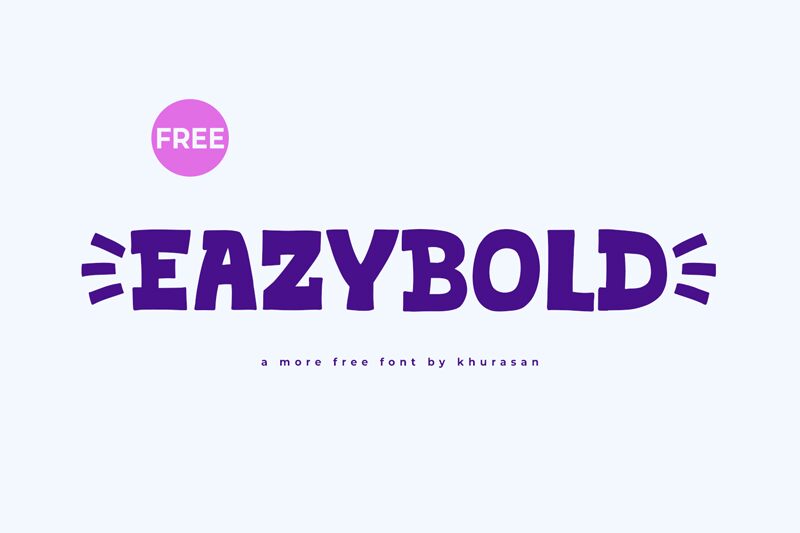
Eazybold
Eazybold, crafted by the renowned Khurasan, is a display font that packs a playful punch with its cartoon-style aesthetic. With its bold weight and semi-expanded width, Eazybold exudes confidence and friendliness, making it an excellent choice for projects that aim to grab attention while maintaining a sense of fun and approachability.
The chunky letterforms of Eazybold are designed to stand out; their solid structure offers superb readability even from a distance. This makes the font particularly suitable for headlines, posters, children's books, or any creative work where clarity and character are key. The playful vibe of Eazybold lends itself to informal branding initiatives or advertising campaigns seeking to convey warmth and whimsy.
Whether you're designing for print or digital media, Eazybold is versatile enough to infuse your project with an engaging personality that resonates with audiences across various platforms. Embrace the spirited charm of Eazybold in your next creative endeavor!
The chunky letterforms of Eazybold are designed to stand out; their solid structure offers superb readability even from a distance. This makes the font particularly suitable for headlines, posters, children's books, or any creative work where clarity and character are key. The playful vibe of Eazybold lends itself to informal branding initiatives or advertising campaigns seeking to convey warmth and whimsy.
Whether you're designing for print or digital media, Eazybold is versatile enough to infuse your project with an engaging personality that resonates with audiences across various platforms. Embrace the spirited charm of Eazybold in your next creative endeavor!